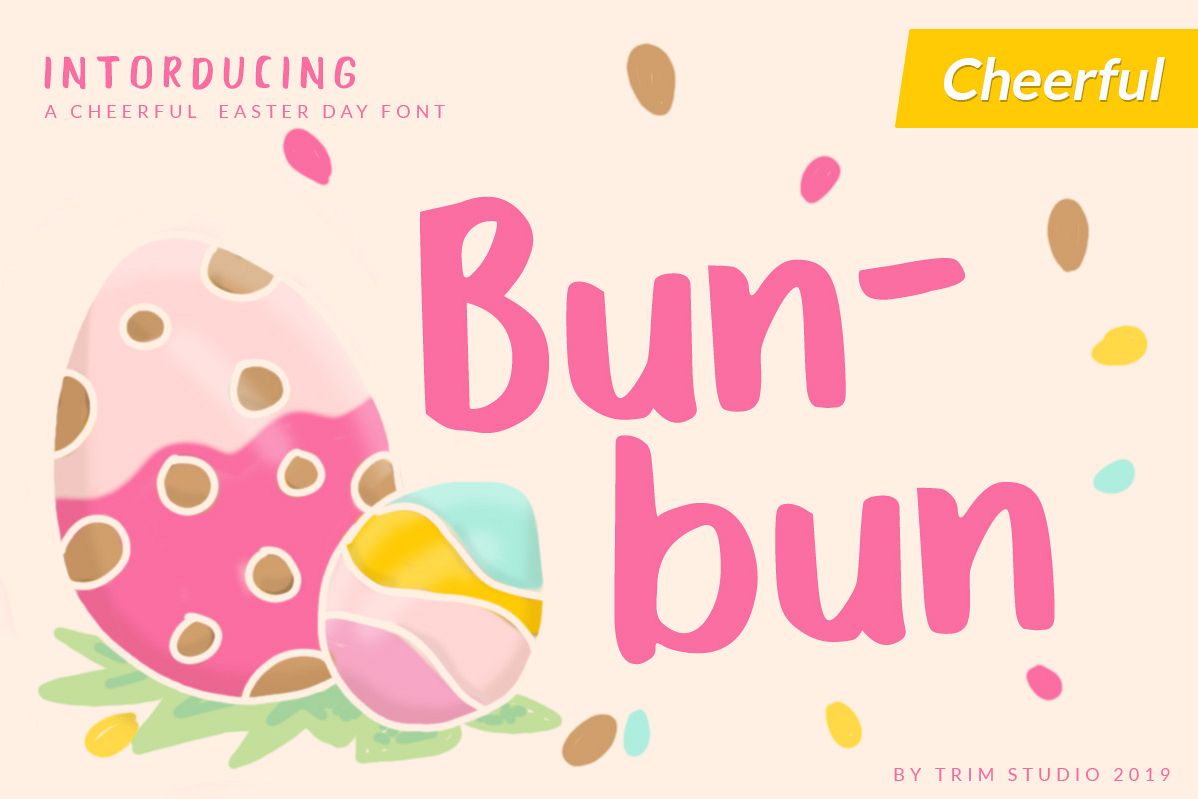
Bunbun - Holiday Font
The Bunbun Font is a display typeface with a cheerful theme. The Unique Handtype gives a fun and playful touch to your design.
Its Great For Easter Bunny days, Holiday, Card, ccessories, and many other design that needs the cute and playful theme.